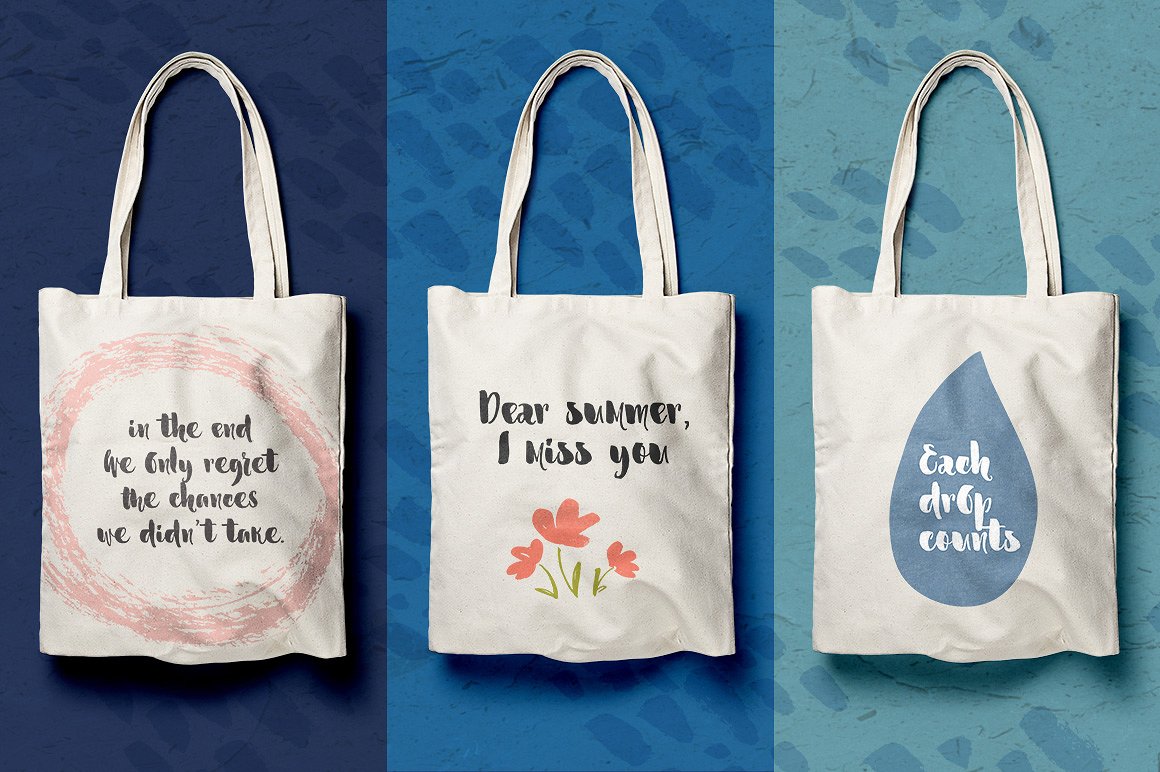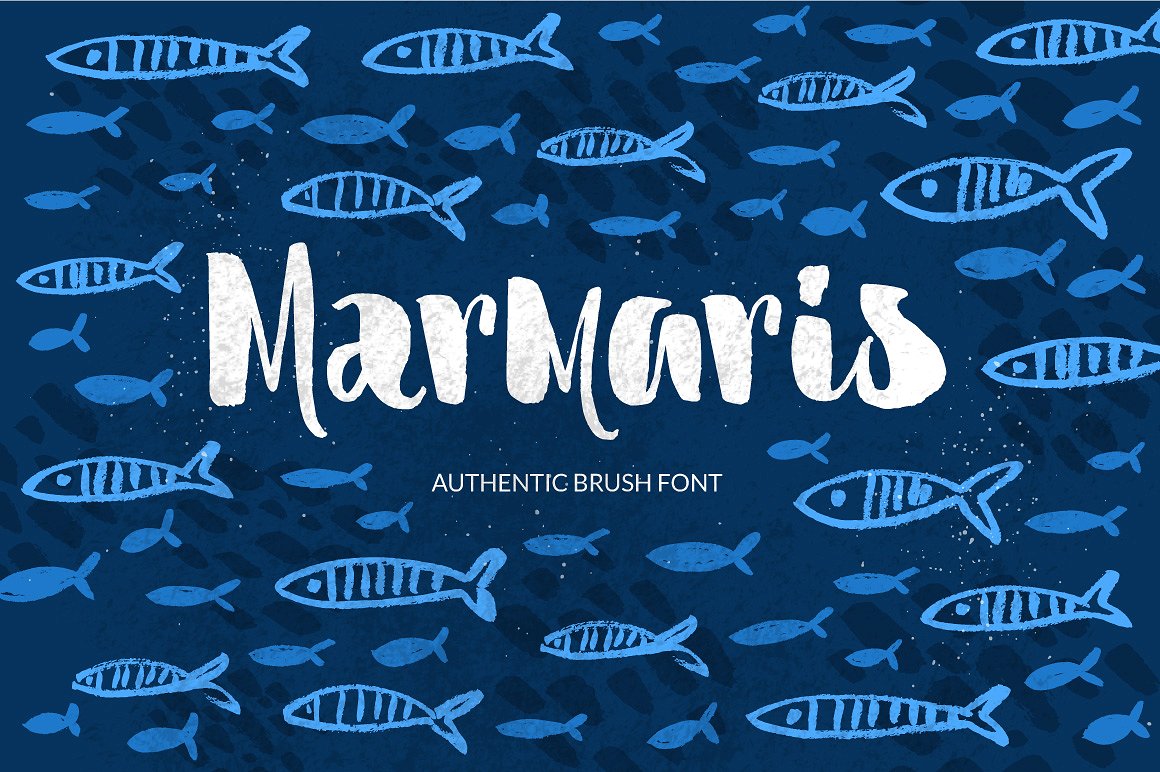
Marmaris Brush Font
Marmaris is a multi purpose brush font with bold lines and organic texture. You can use uppercase letters to create organic & bold designs, and lowercase portion is great for more gentle approach. Marmaris is great for branding, logo design, invitations and posters.